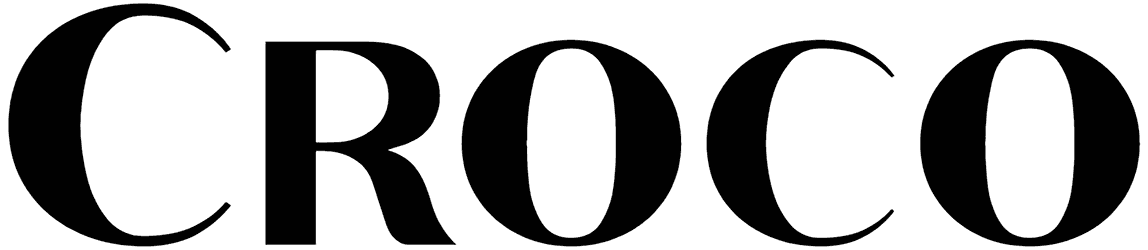
By using a sans serif font like Shauna you can add softness, elegance, and precision to your content and make a stronger impact on your audience.
Its characters are uniformly straight and it looks captivating, so it can be included in writing the headlines of the news, designing website templates, packaging, and diplomas. Last but not least, it comes with two distinctive styles, so it adds a considerable variety to your content.